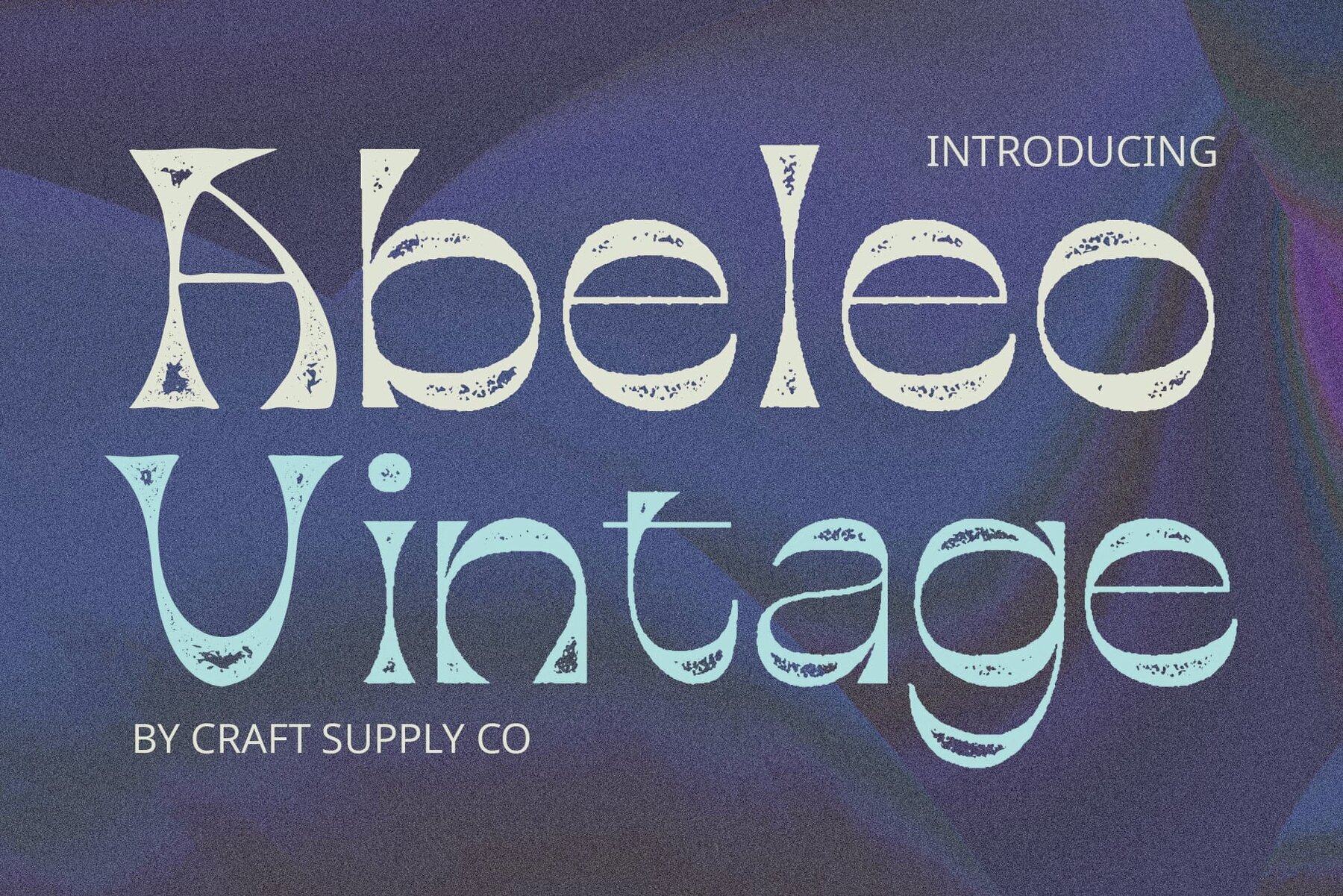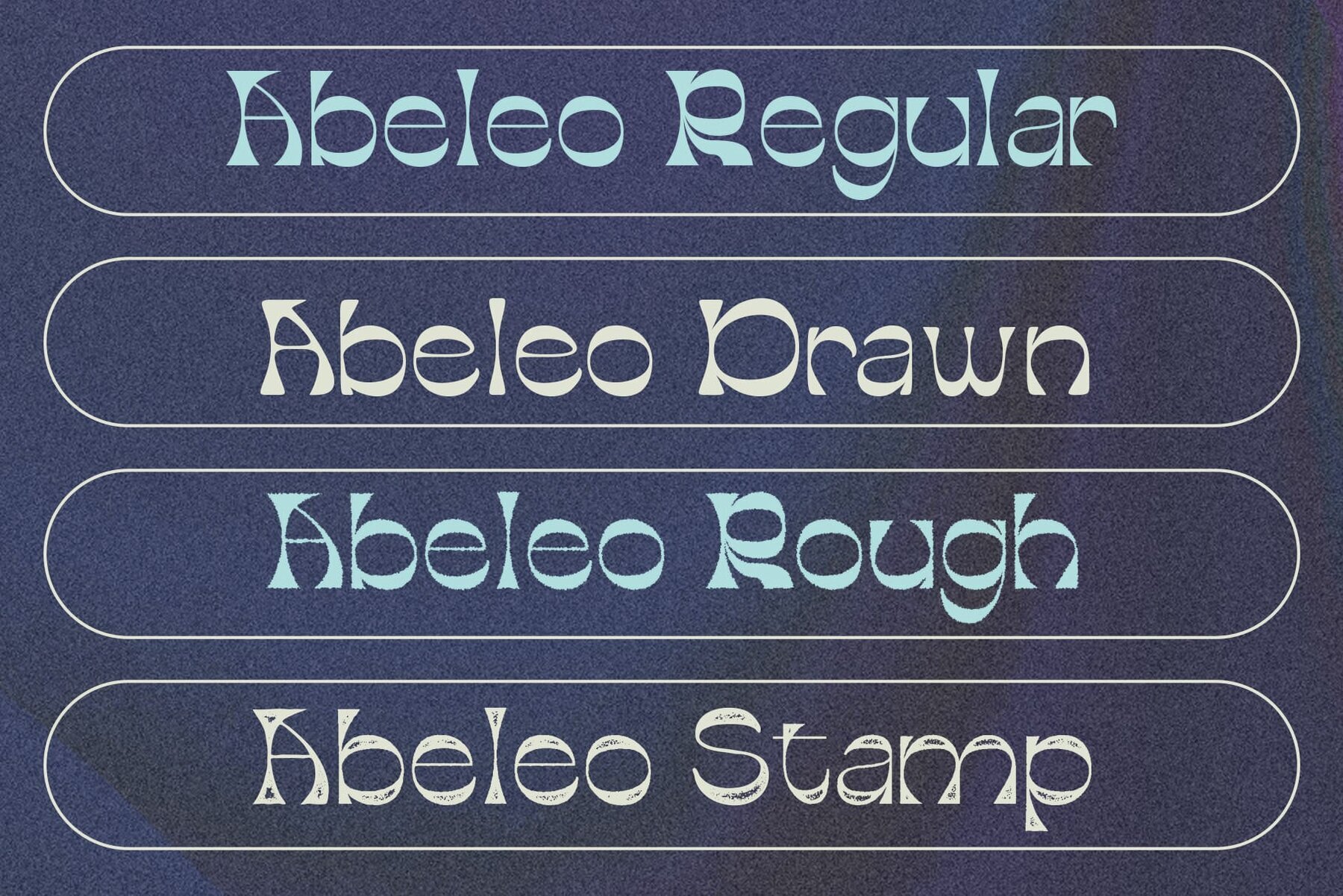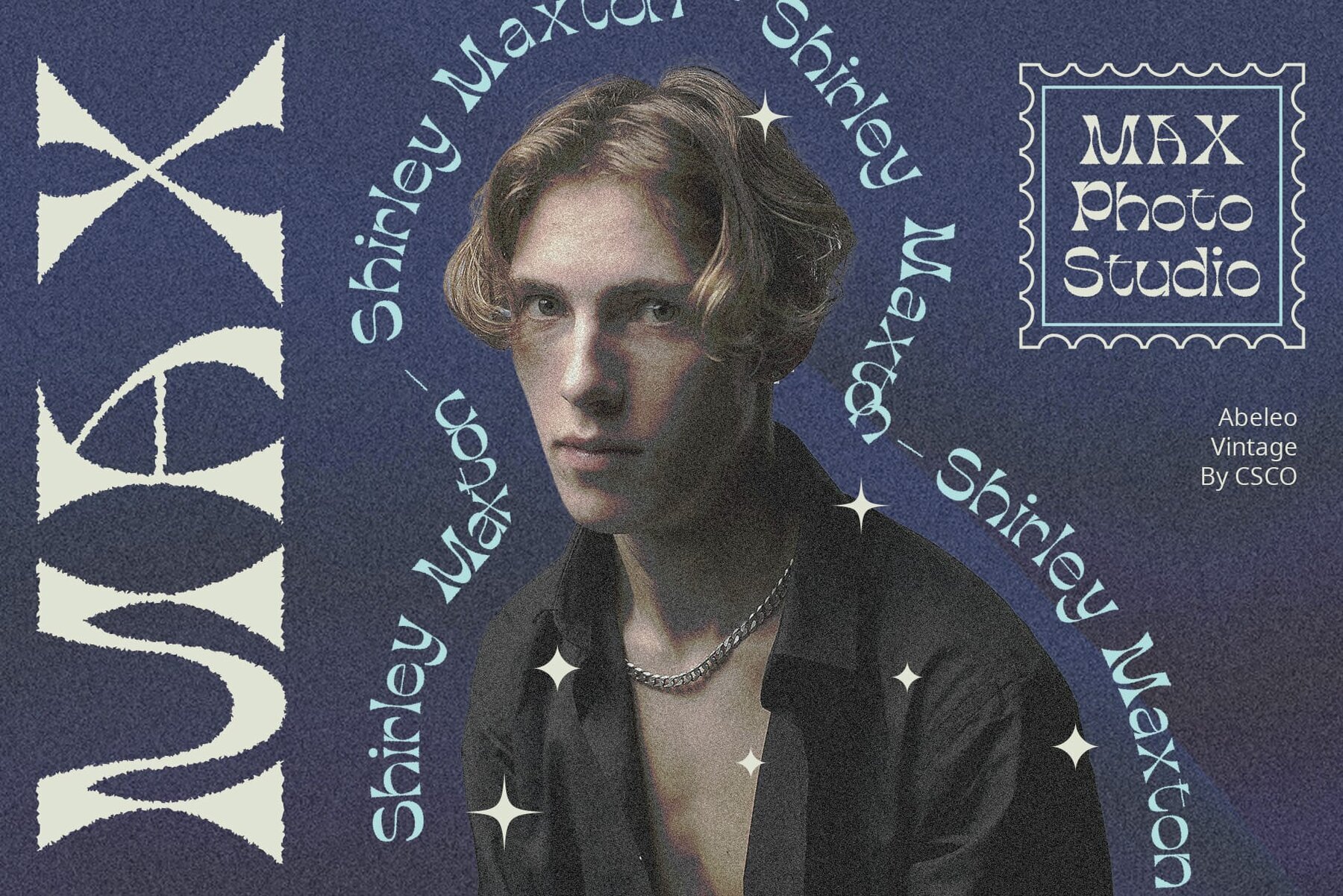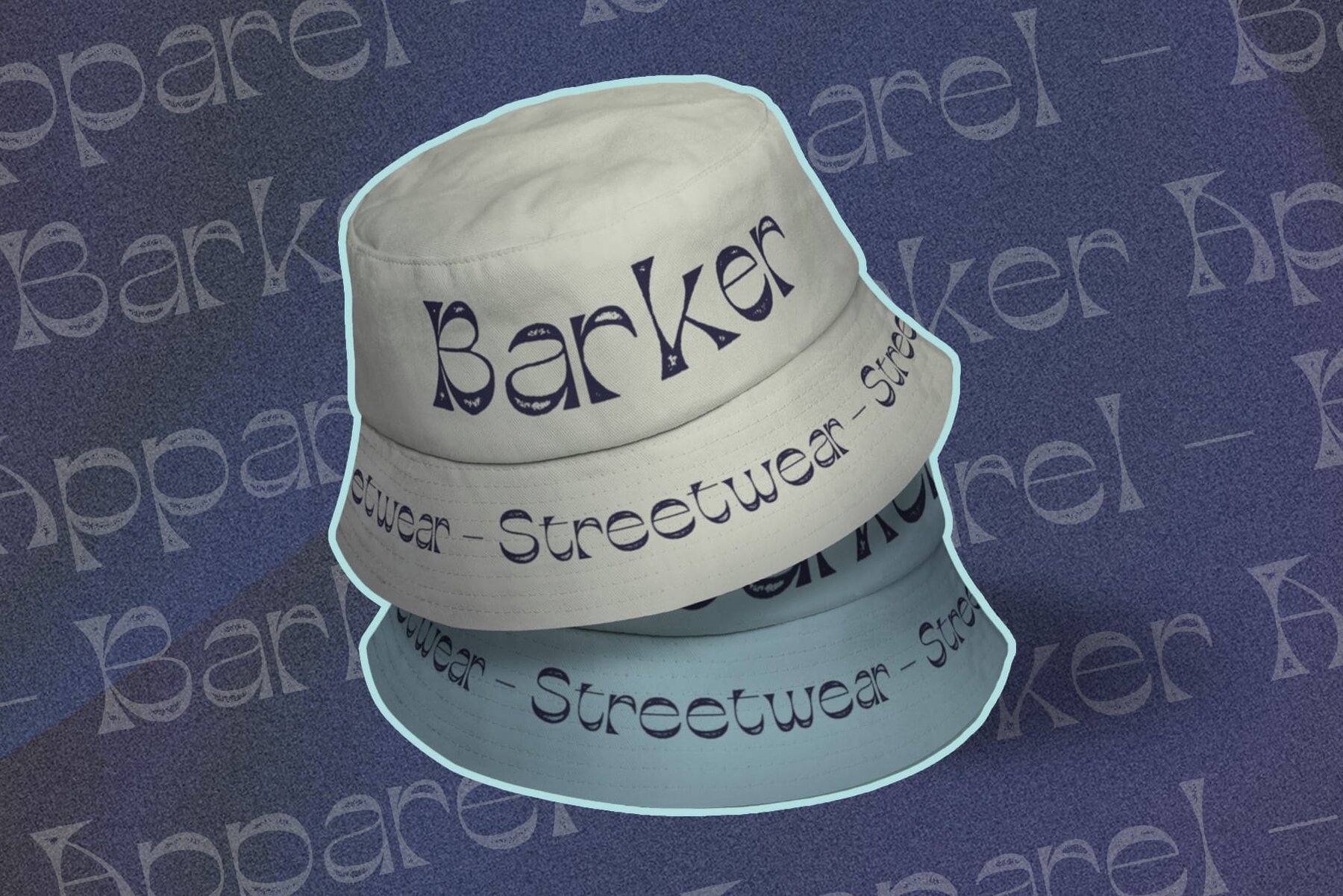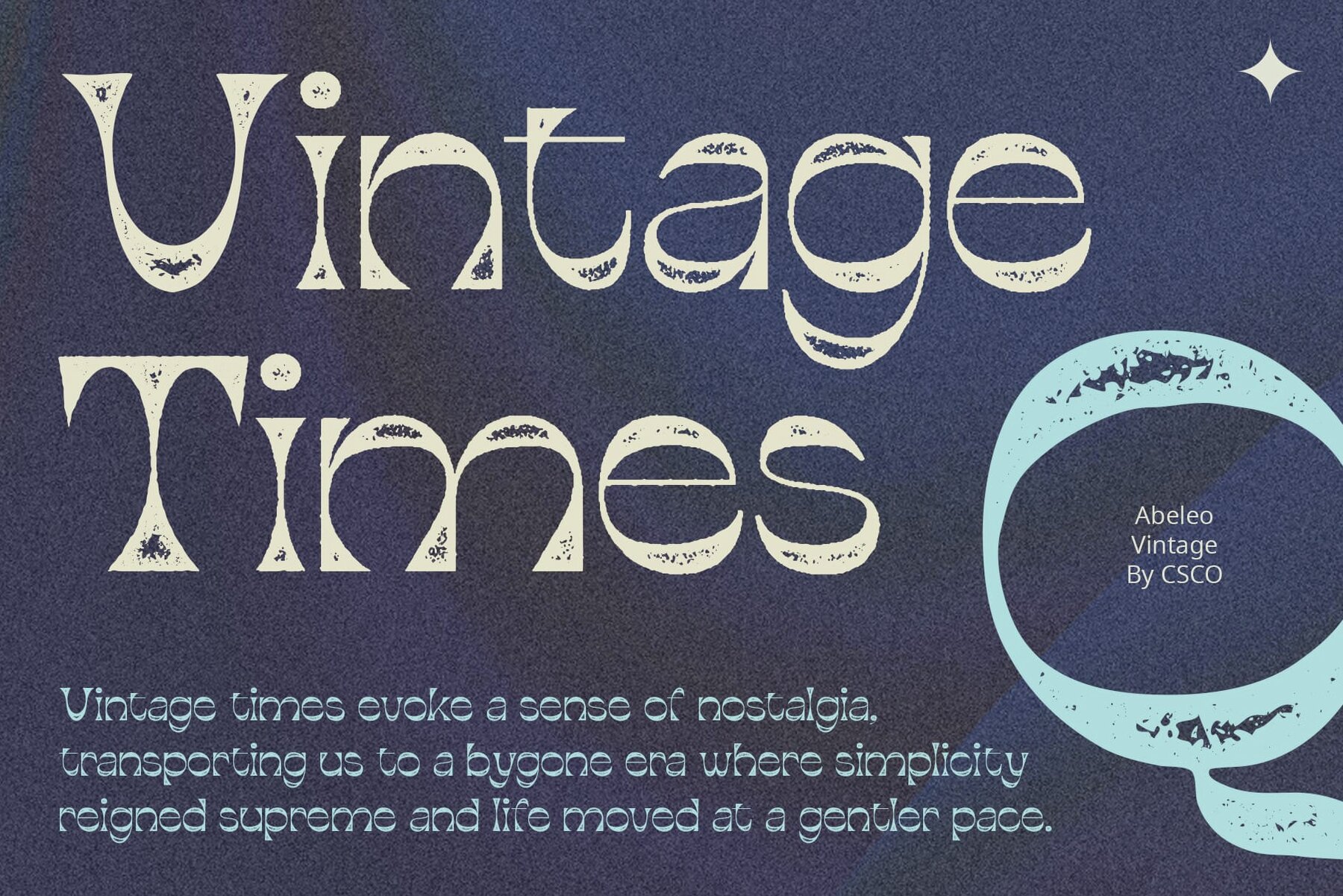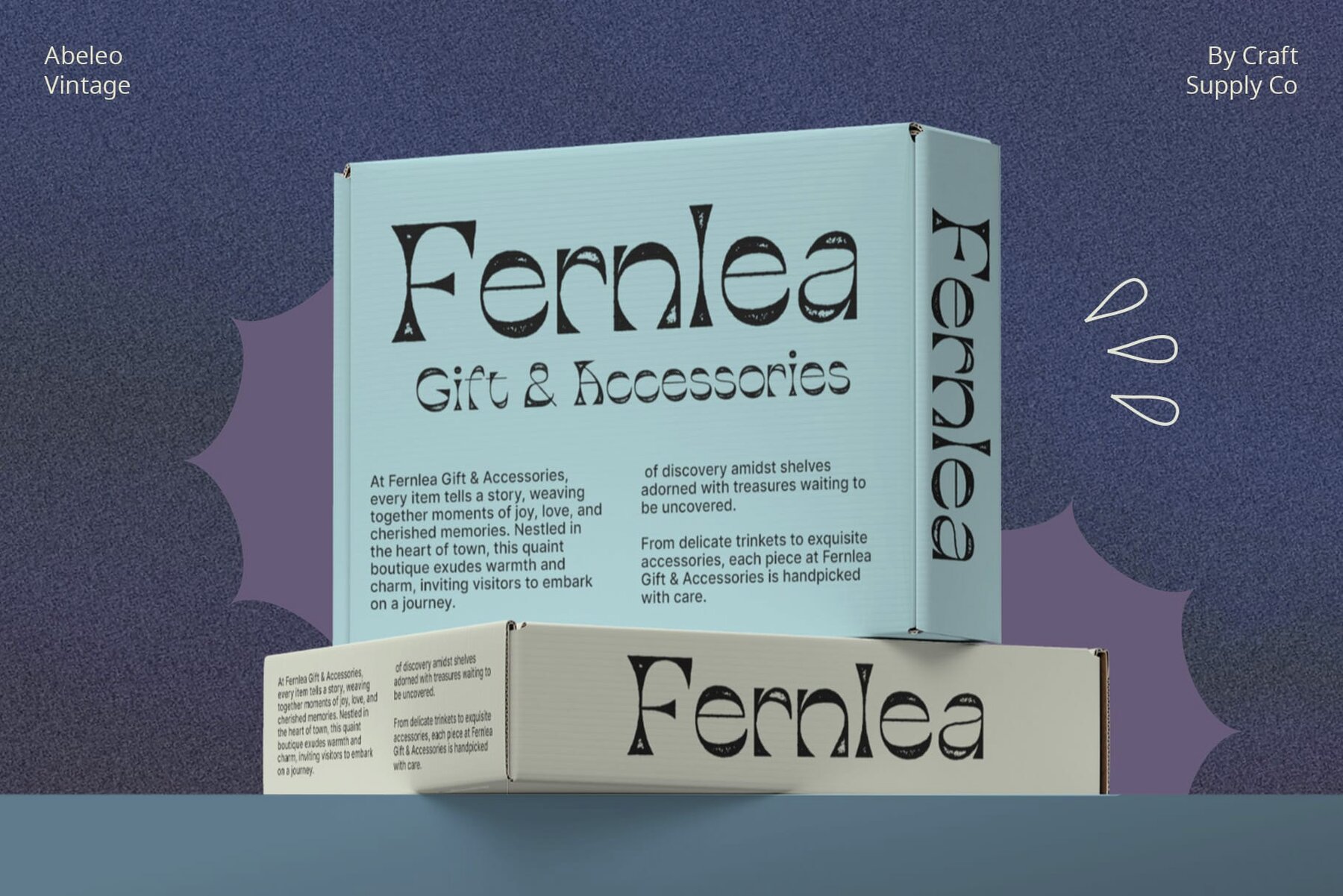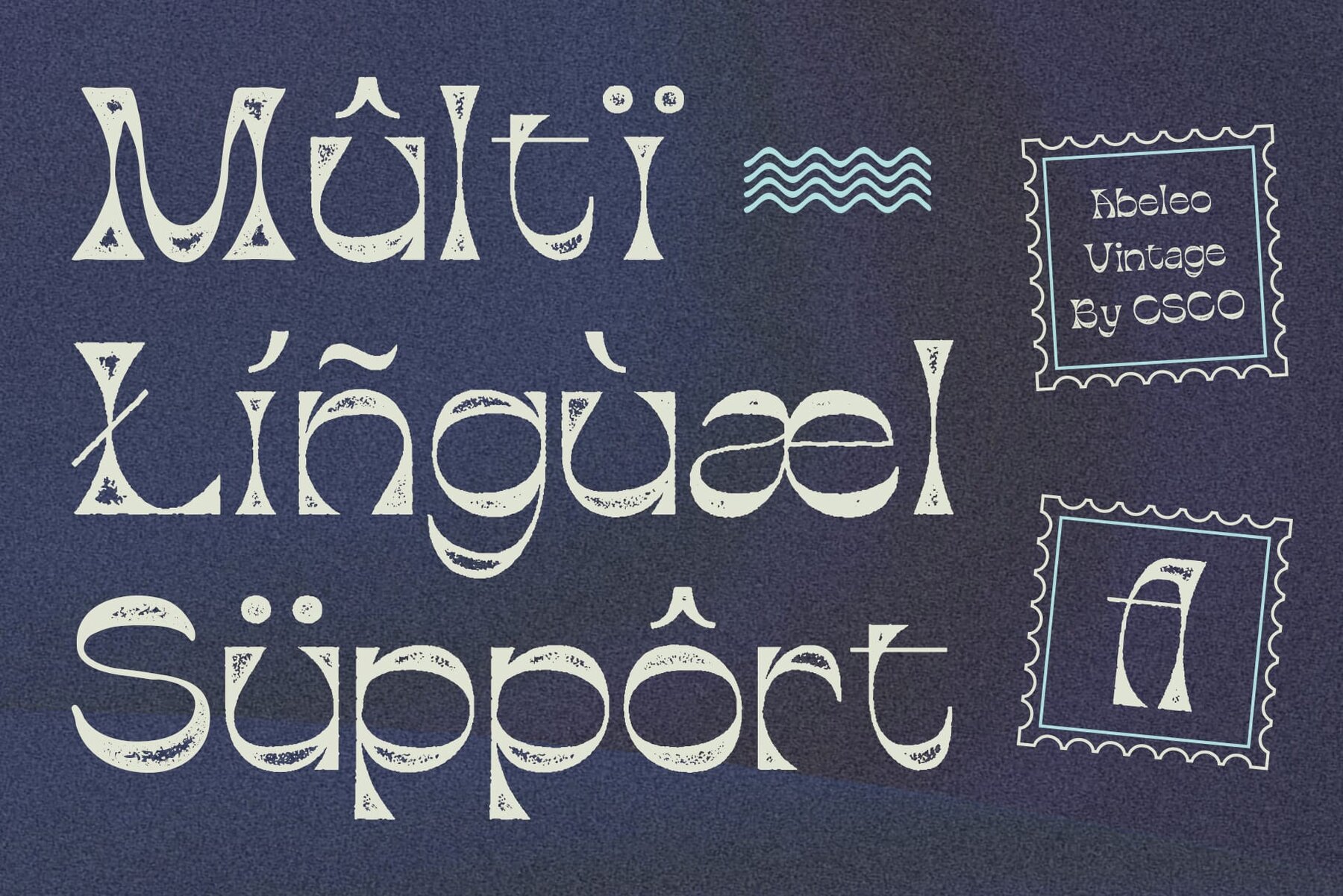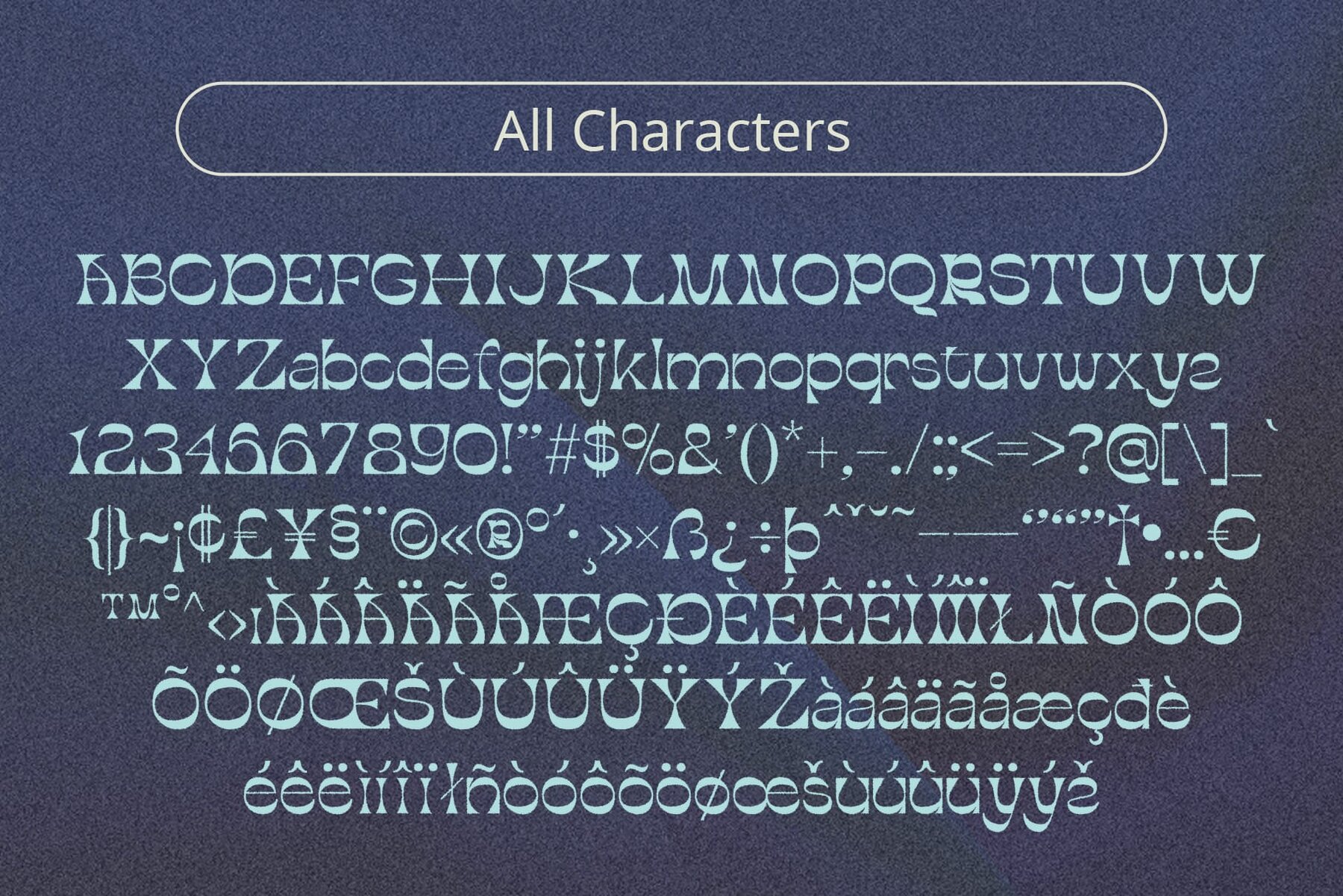
Abeleo Vintage Font
Unique Funky Shape Abeleo Vintage features a distinctive display style characterized by its narrow stems and widened terminals. This funky design adds a playful touch to any project. Infused with a rough stamp drawn effect, this font exudes a nostalgic vintage charm. Each letter carries a weathered aesthetic, reminiscent of retro typography from bygone eras. With its funky shape and vintage appeal, this font offers versatility in design applications. From posters to album covers, its eye-catching style adds flair and personality to various creative projects. The combination of narrow stems, widened terminals, and rough stamp drawn effect gives this font its captivating retro aesthetics. It stands out as a bold and unique choice for designers seeking to evoke nostalgic vibes in their work. This font encapsulates the essence of retro funk with its unique shape and vintage-inspired rough stamp effect. Perfect for adding a touch of nostalgia and personality to contemporary designs, it’s a standout choice for creatives aiming to make a statement. No specialized software is needed to utilize this typeface.Abeleo Vintage: Embracing Funky Retro Vibes
Vintage Charm with Rough Stamp Effect
Versatile Application in Design
Captivating Retro Aesthetics
Retro Funk for Modern Designs